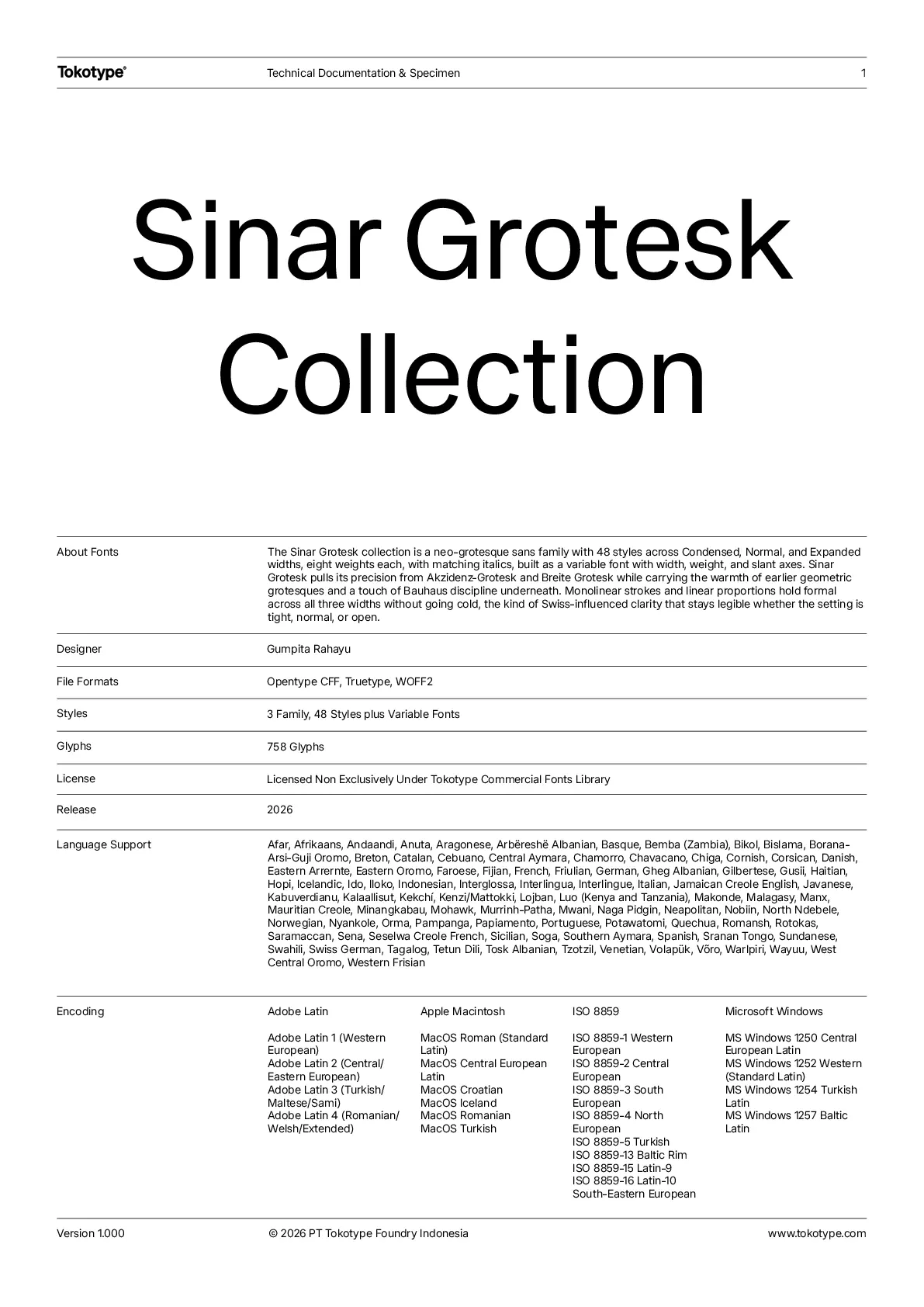
Sinar Grotesk Collection
Sinar Grotesk
Sinar Grotesk Condensed
Sinar Grotesk Expanded
The Sinar Grotesk collection is a neo-grotesque sans family with 48 styles across Condensed, Normal, and Expanded widths, eight weights each, with matching italics, built as a variable font with width, weight, and slant axes. Sinar Grotesk pulls its precision from Akzidenz-Grotesk and Breite Grotesk while carrying the warmth of earlier geometric grotesques and a touch of Bauhaus discipline underneath. Monolinear strokes and linear proportions hold formal across all three widths without going cold, the kind of Swiss-influenced clarity that stays legible whether the setting is tight, normal, or open.
3 Family, 48 Styles – Variable